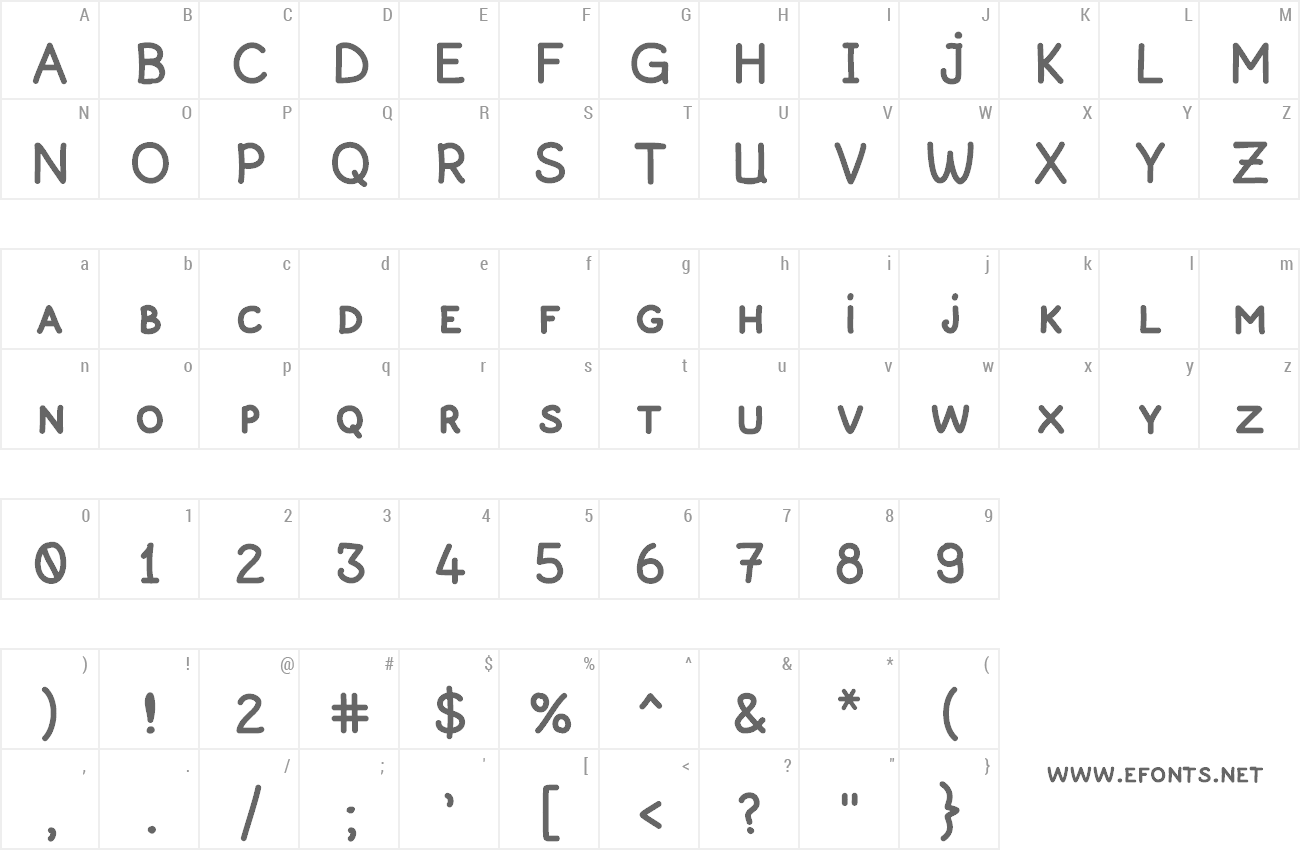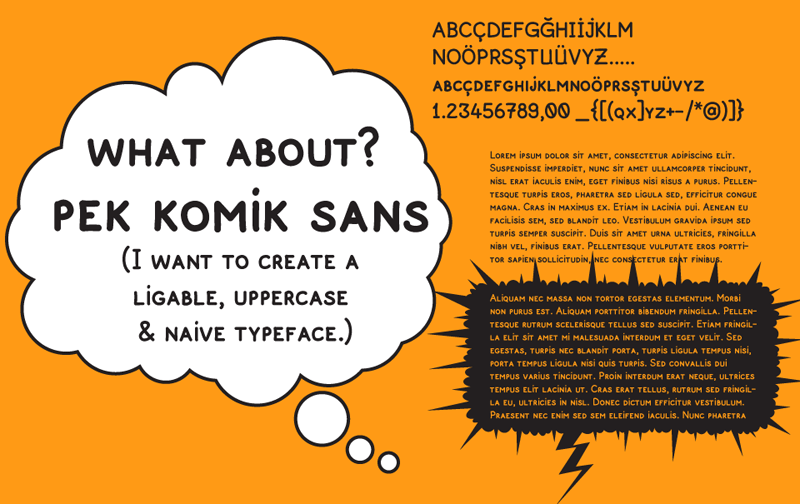
This typeface started with trying an new software. When I woke up, the font set had already finished. You may use in your project freely but if you mention my name Ozgur Serdar Altunoglu, and my site http://serdara.ca I will be happy. Thanks. PS: This is Version 1.0 updates will be come. |